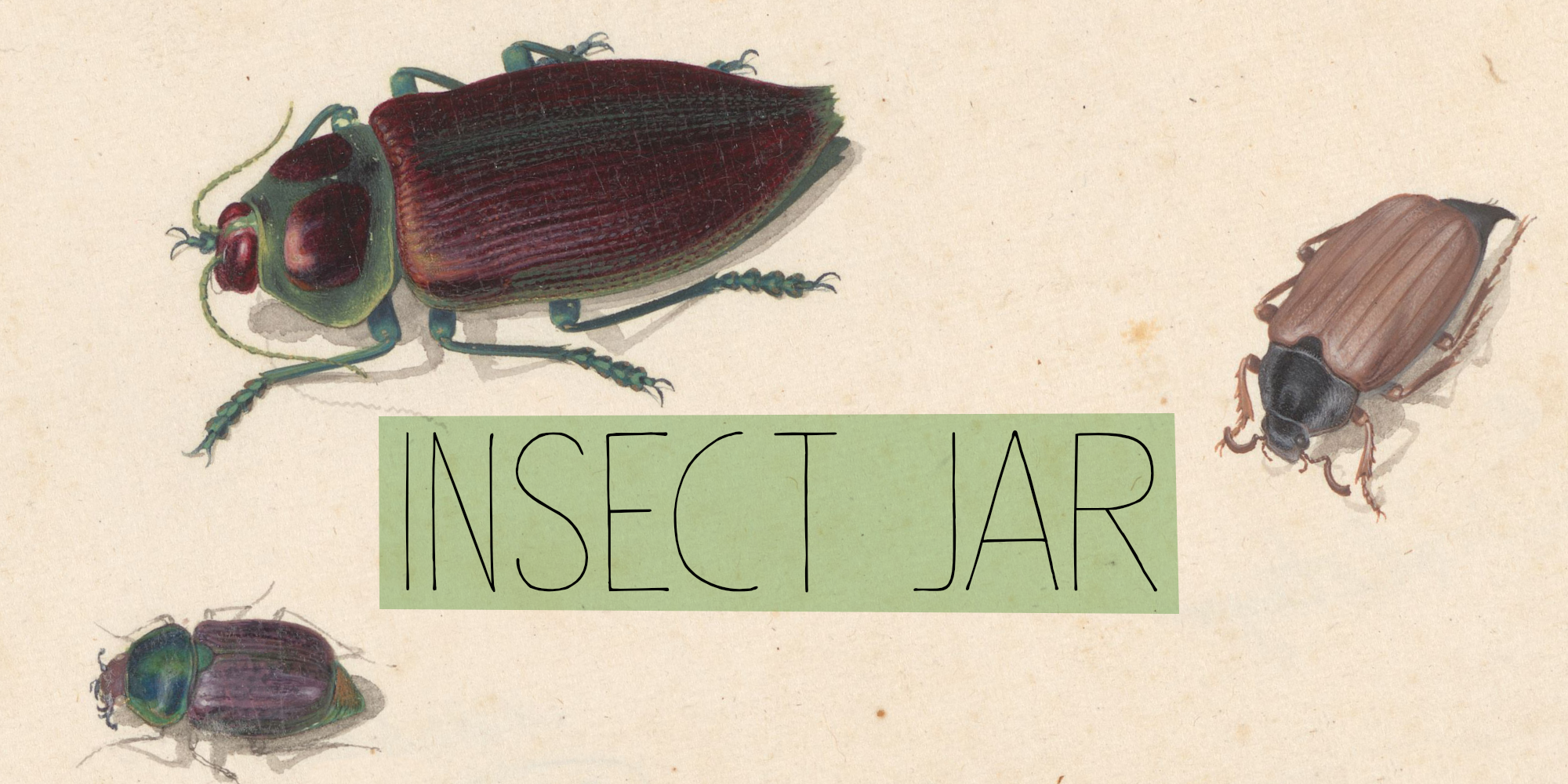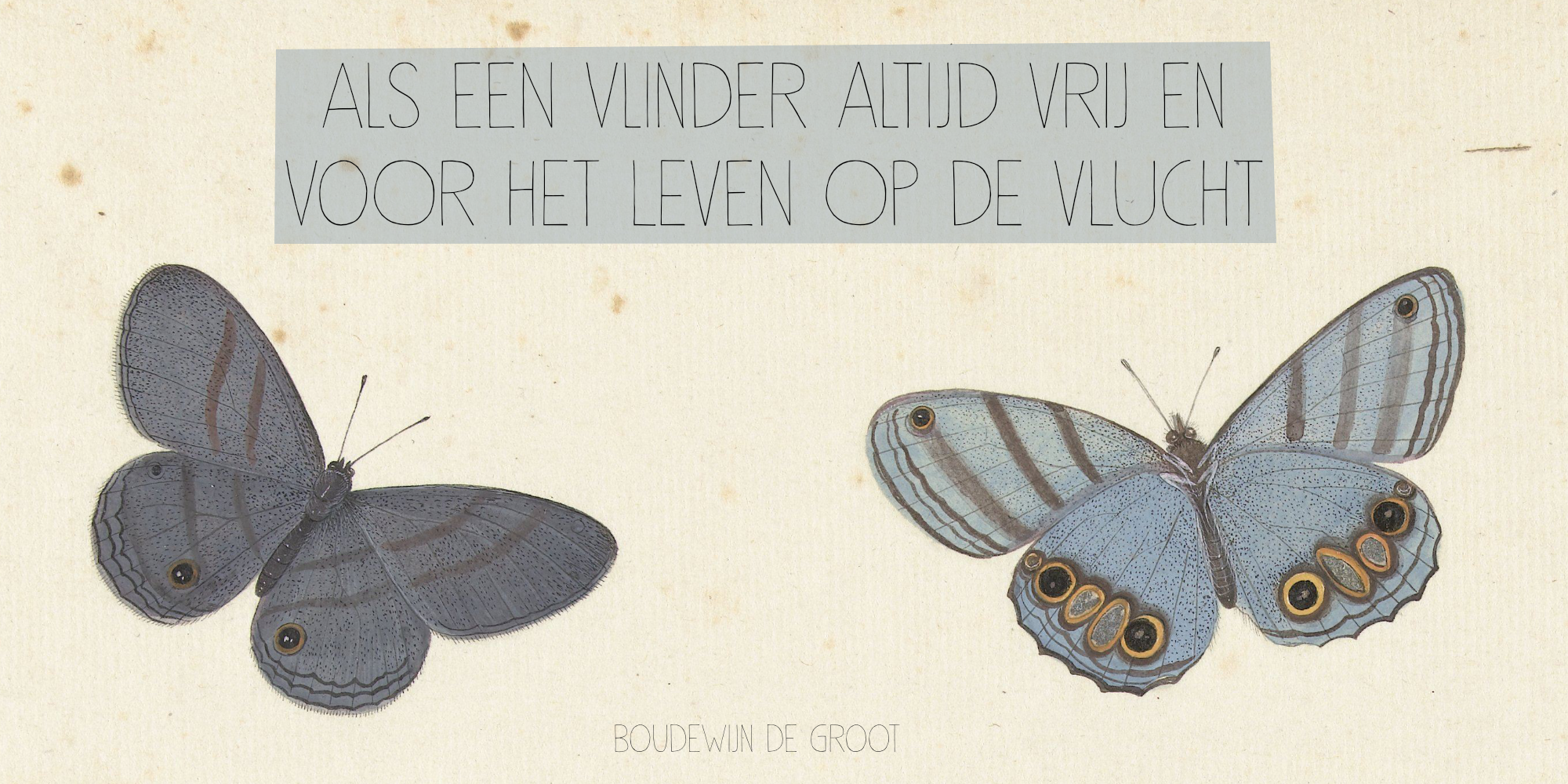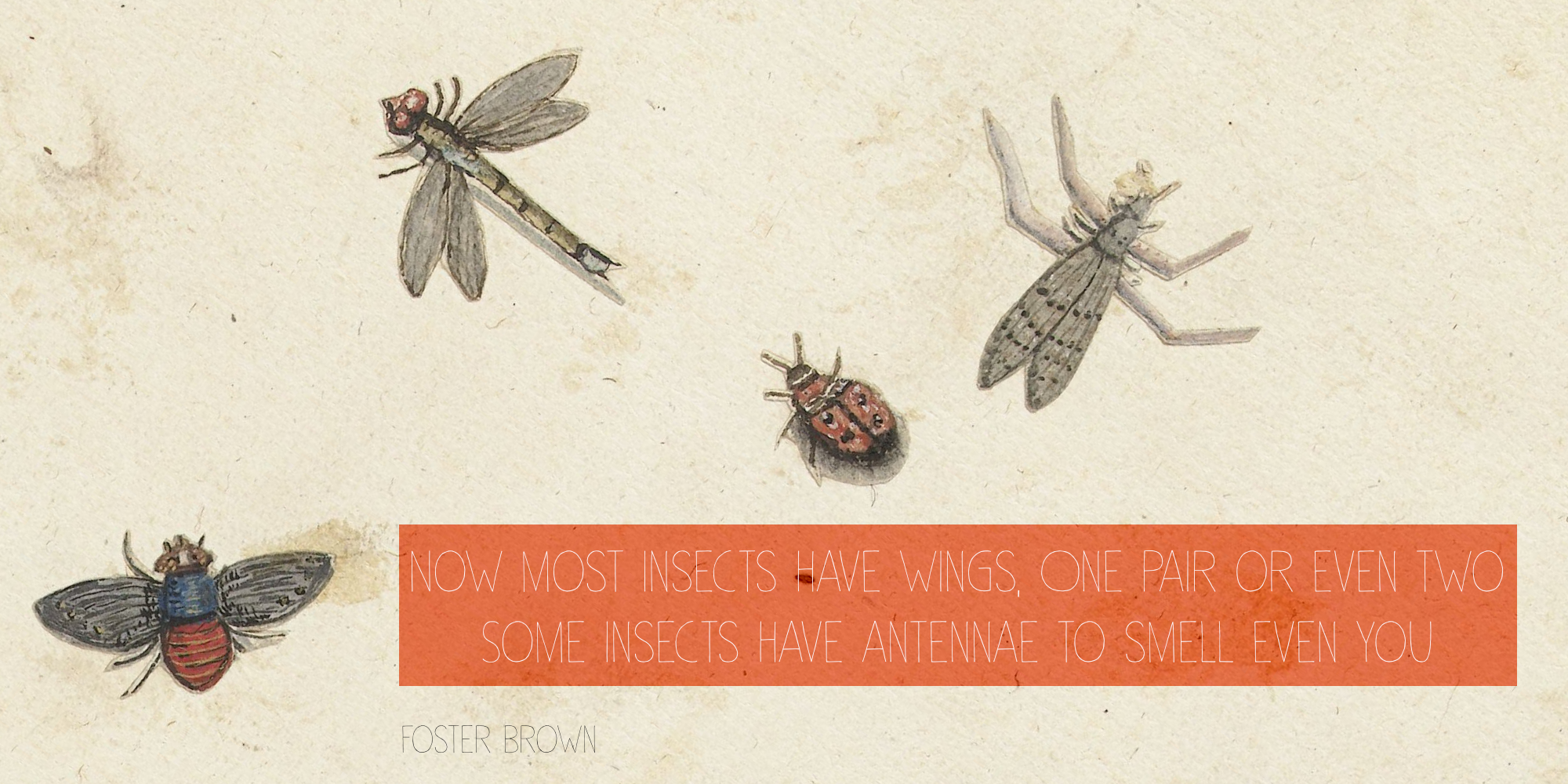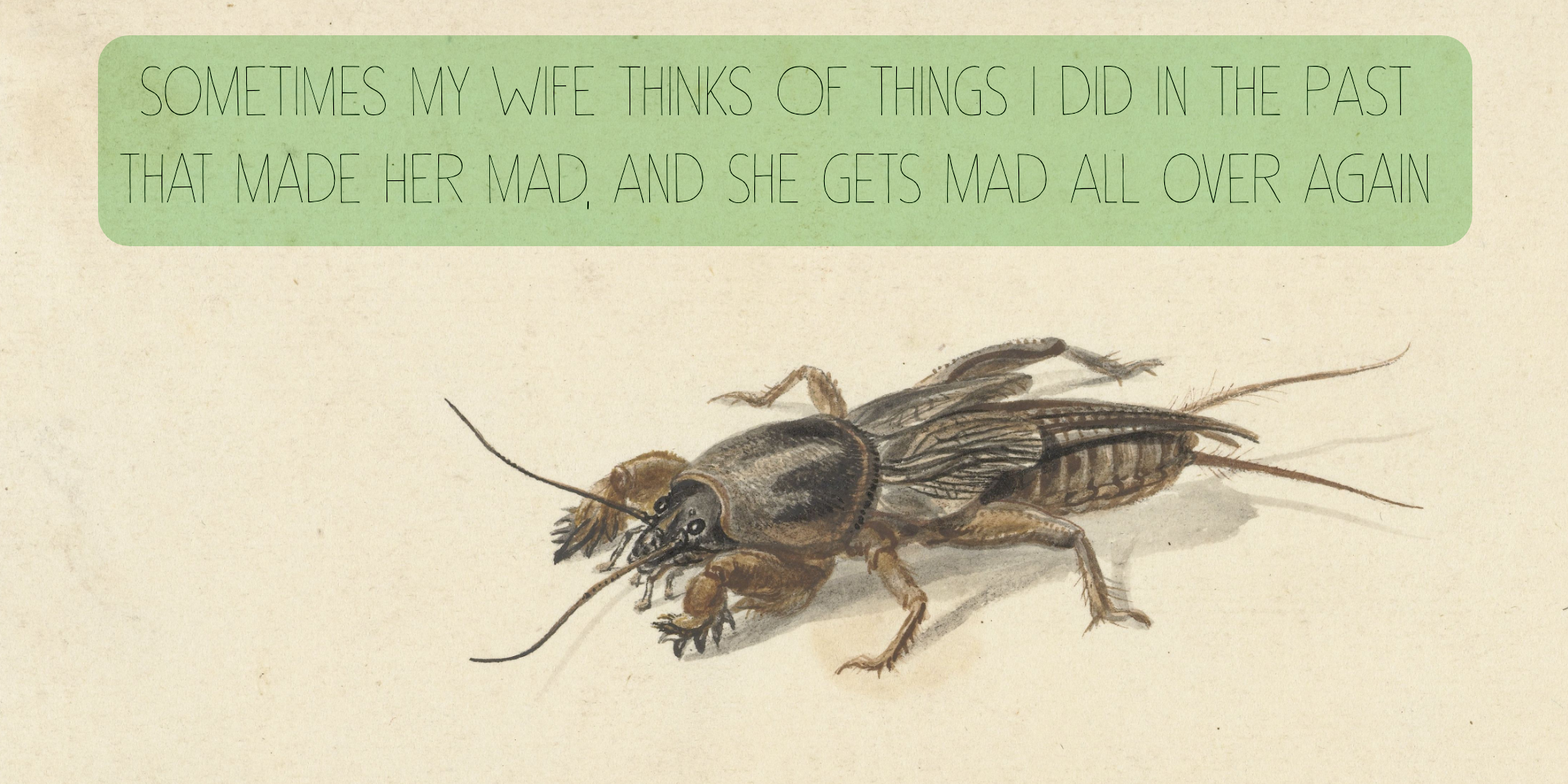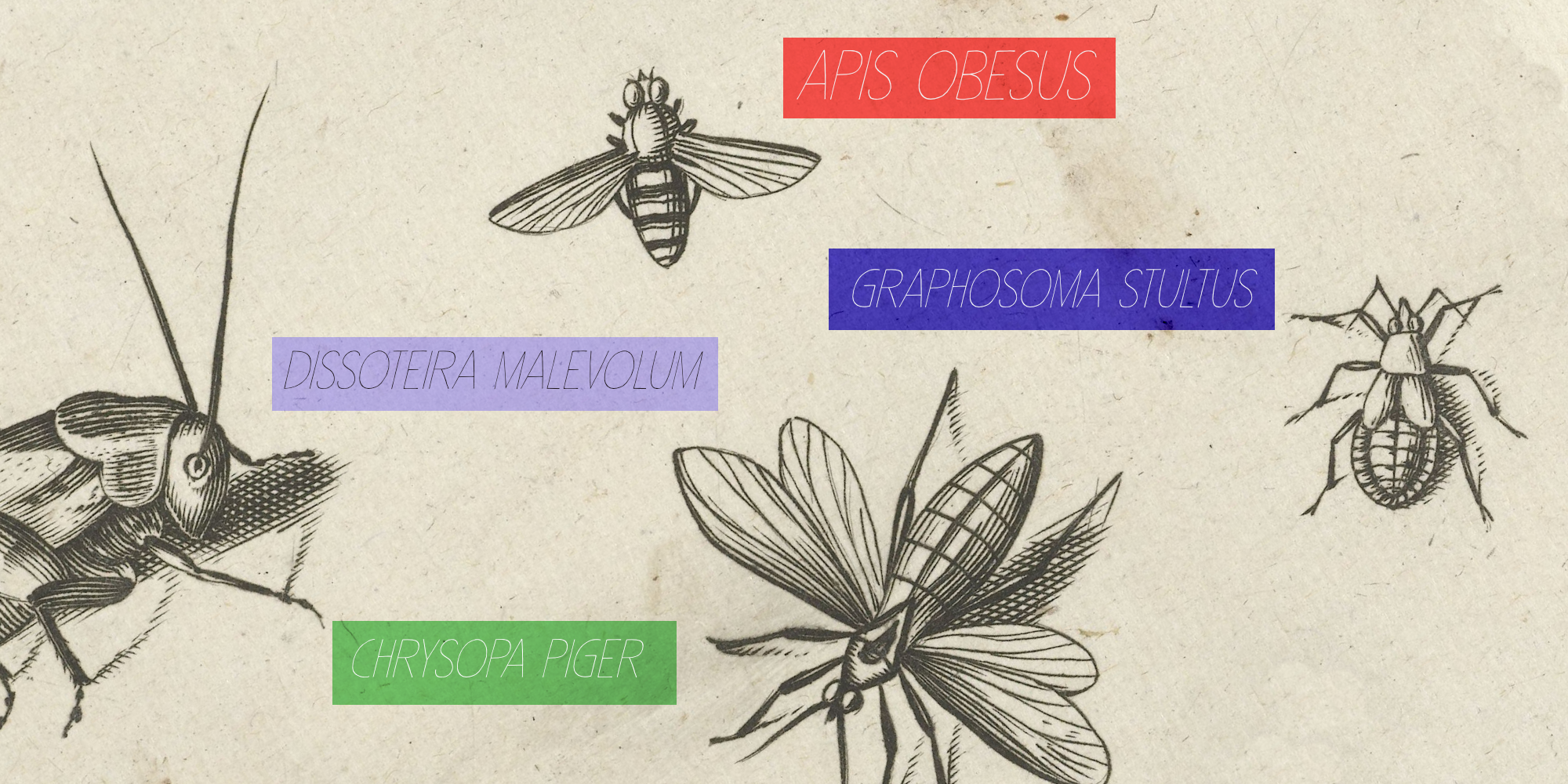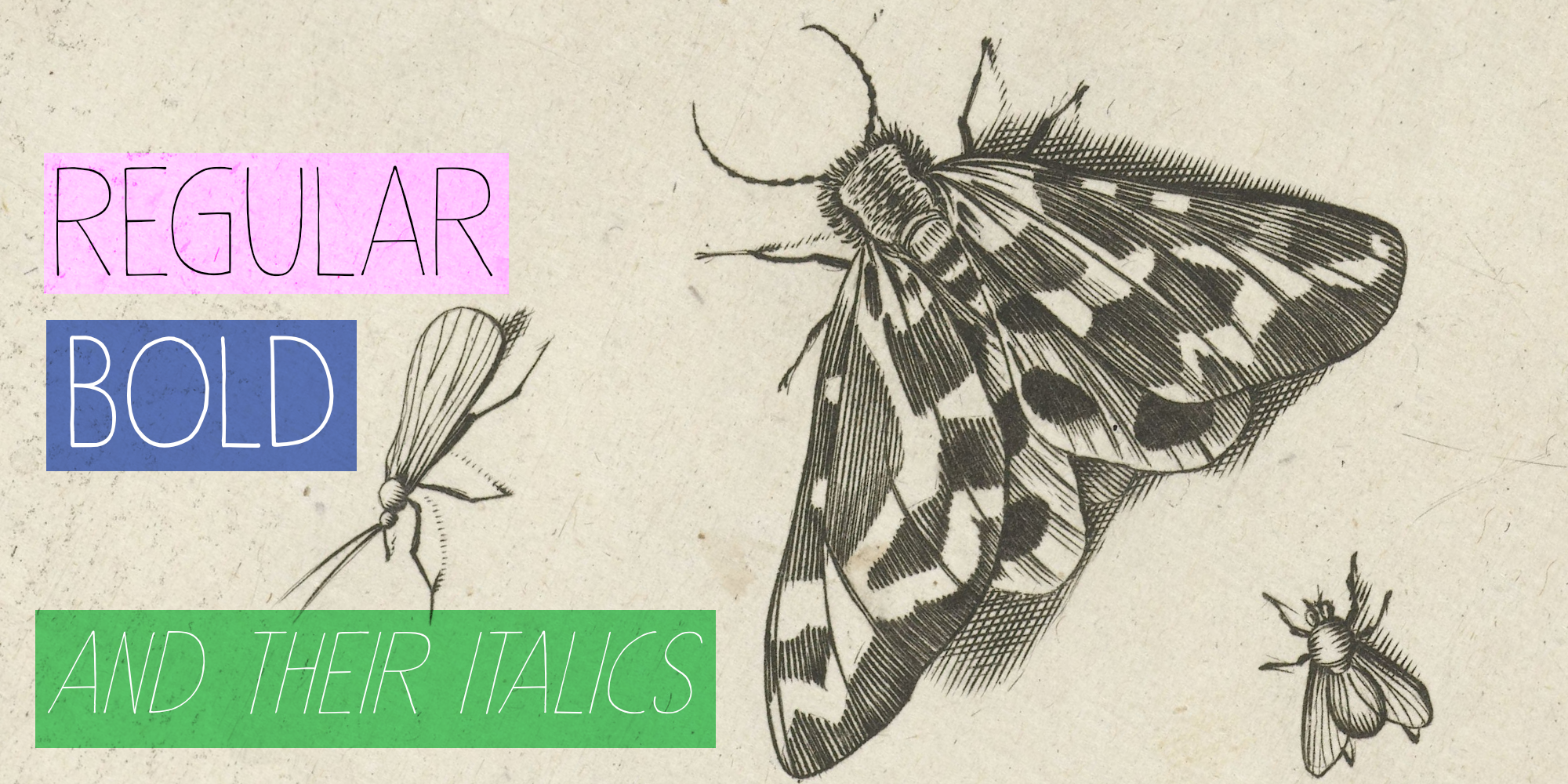
Insect Jar (4 fonts)
Insect Jar is a really thin, all caps font based on a really old font of mine called Sleepy Time. It comes with extensive language support, a bold version and an ant.